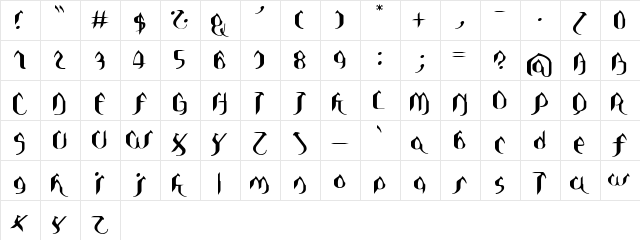
Asie Normal
Design Context for Asie Typeface
Asie is a composed and adaptable typeface that performs quietly and consistently across a wide range of design contexts.